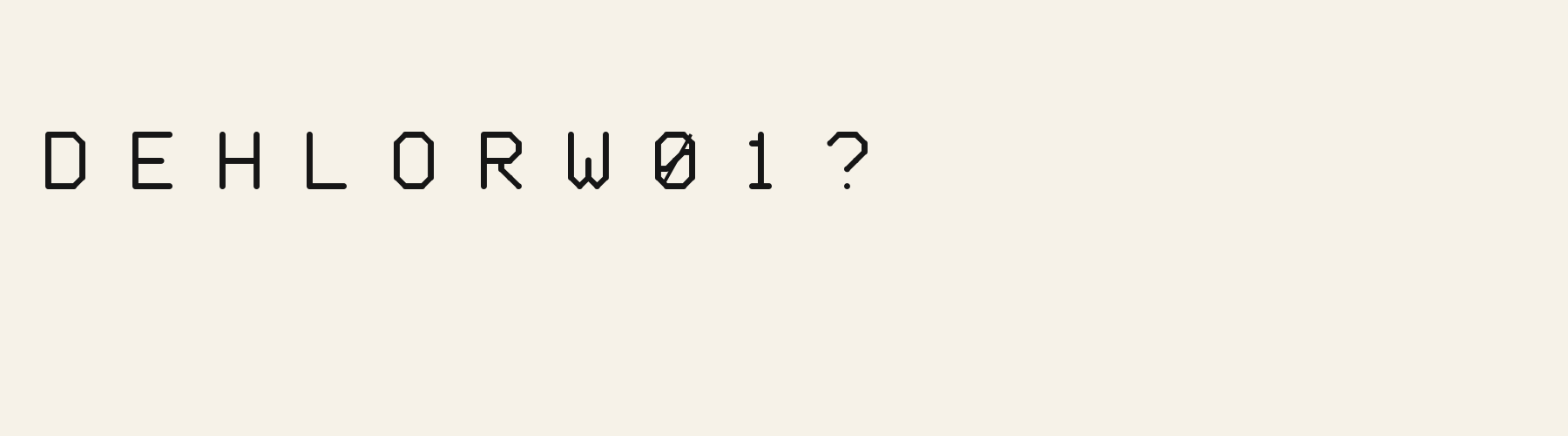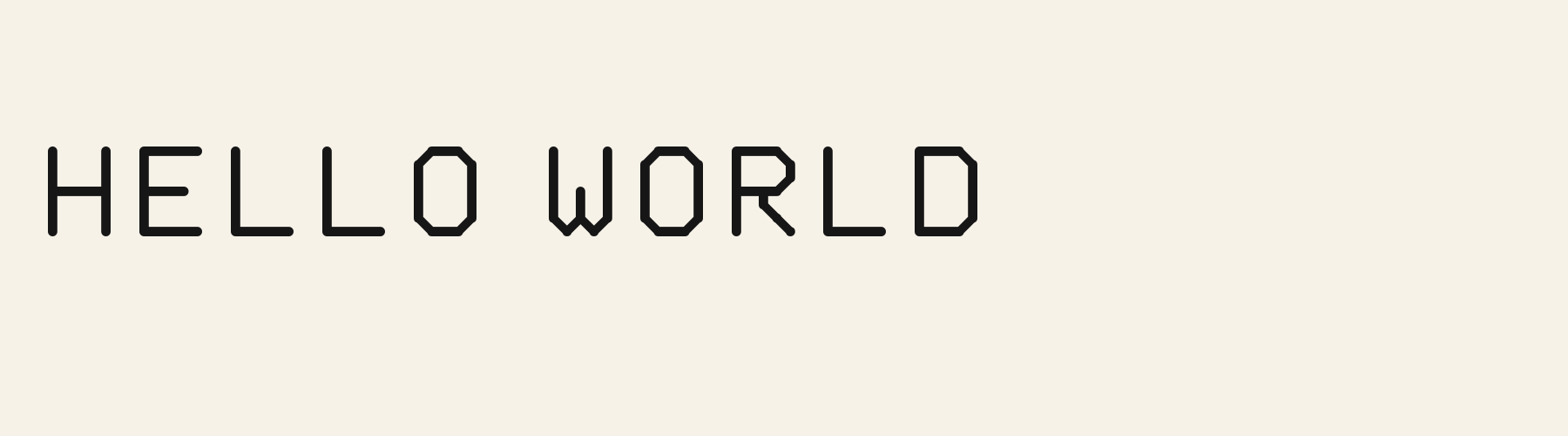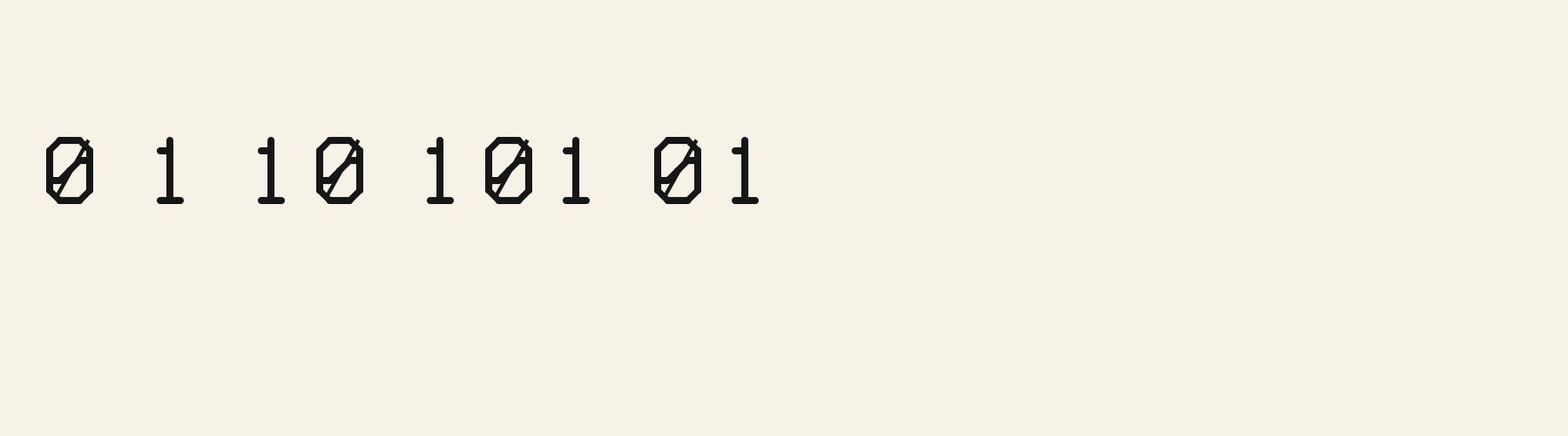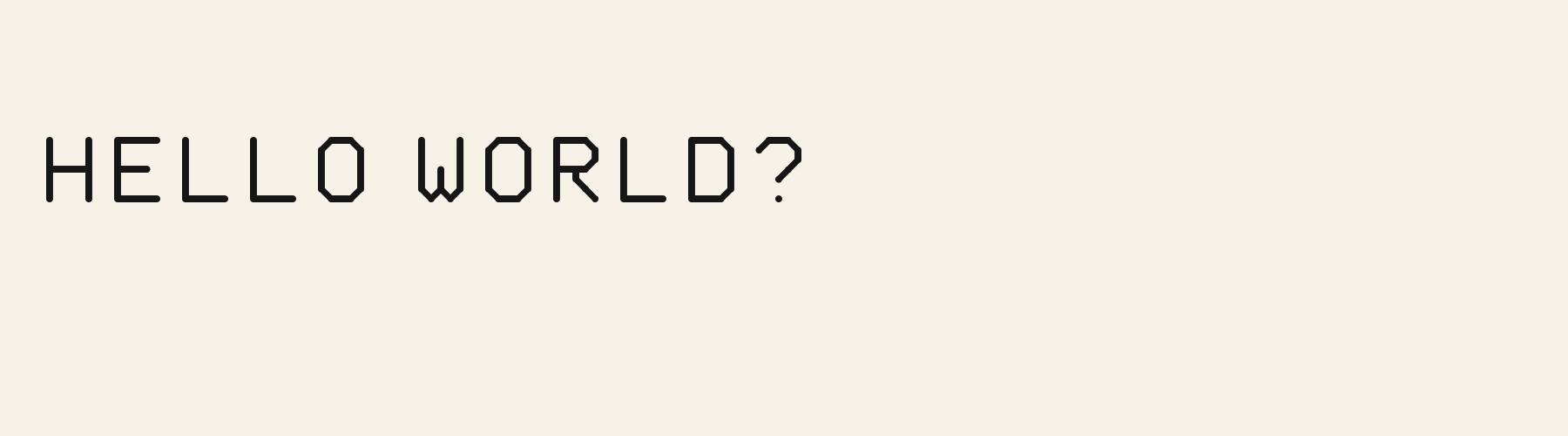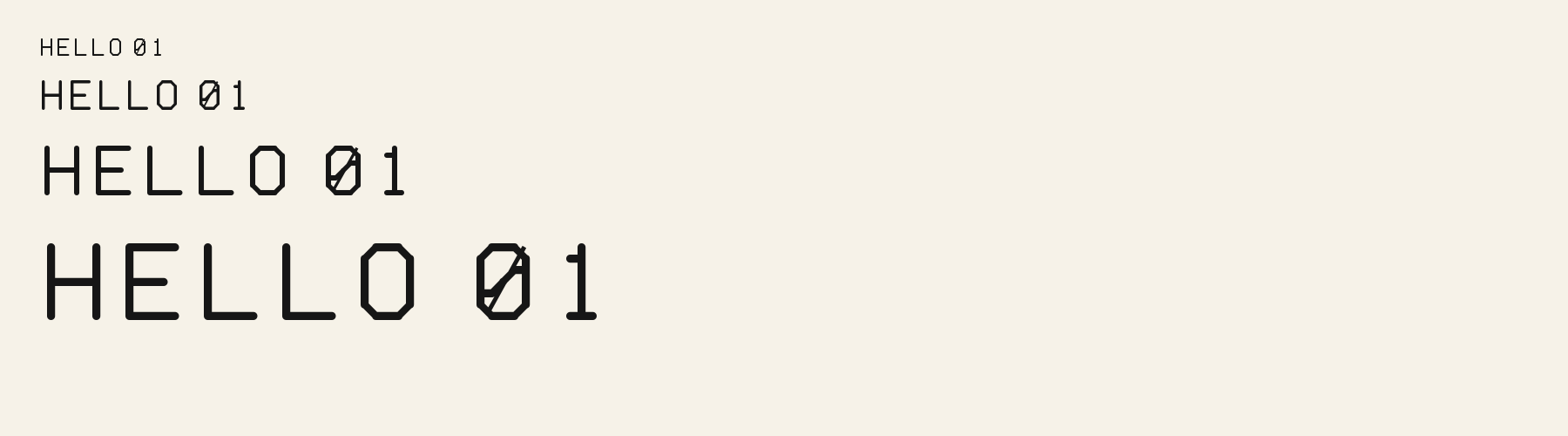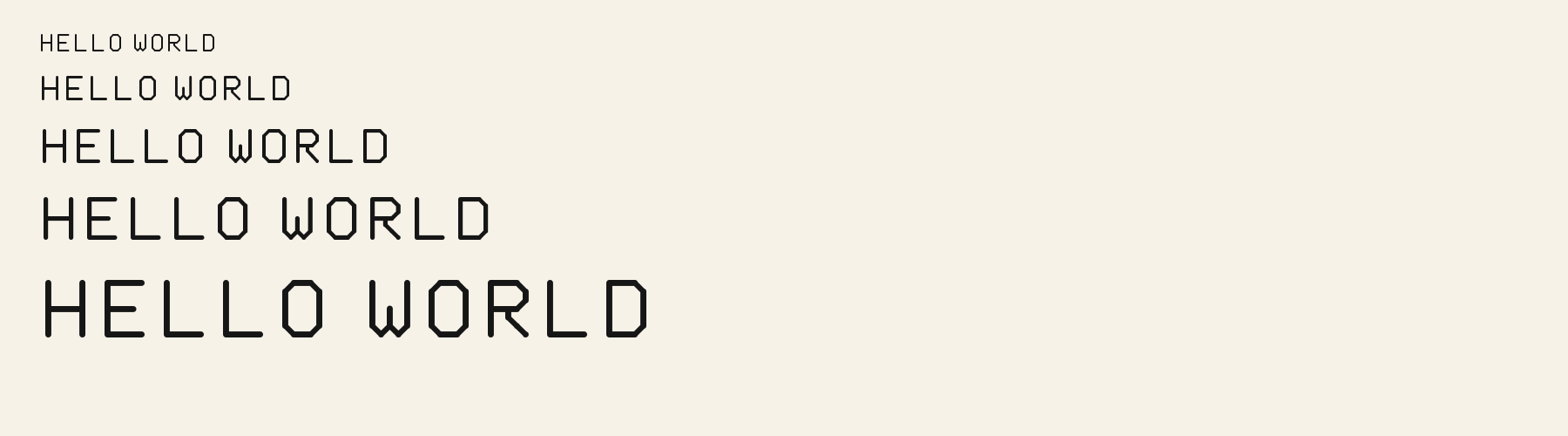
Mono Terminal Round Clipped Corner Coding Font
Mono Terminal Round combines angular outlines with softly rounded stroke ends.
Clipped Corner Coding Letterforms
Mono Terminal Round combines angular outlines with softly rounded stroke ends. The O has flat sides and clipped corners, creating an enclosed, octagonal counter rather than a smooth oval. The D keeps its left corners square while cutting across the right corners, and the W drops into pointed lower turns around a short central stem. Even strokes connect these shapes without a change in weight, while generous gaps keep the line feeling open. The result has the orderly mood of a console heading, softened by the blunt, rounded ends visible on letters such as E and L.
Check O against the slashed zero in actual Latin strings, then inspect the R leg and W junction at your intended size. Review punctuation spacing in technical labels. Hebrew needs a separate proof, since these specimens show Latin lettering rather than Hebrew forms.
Try it for short headings or status labels, with a proportional sans serif for supporting text. Its clipped bowls and broad, regular rhythm would contrast with narrower, more fluid paragraph lettering; proof the combination in your actual layout.
Mono Terminal Round: letterforms and layout
Compare smaller and larger previews to inspect the clipped corners of O and the central junction of W. The larger setting exposes the rounded stroke ends; check whether those details remain distinct in the smaller setting.
Mono Terminal Round uses a closed, angular O with flat horizontal sections and clipped corners. Its heavier strokes give the shared wording a firmer presence, with the geometric bowls carrying the coding mood.
Mono OCR Rounded Notch shows a narrow oval O with a visible break on its right side. Its finer strokes and curved bowls introduce a more delicate rhythm alongside the angular D and R.
Poster. Clipped bowls and forked W shapes give a coding event poster a clear geometric character with softened stroke ends. SENSOR READY
Product label. Even strokes and open interiors suit short equipment labels, giving technical wording a consistent, approachable appearance. HELLO WORLD
Website headline. The angular O and spacious rhythm make a short website heading feel deliberate, while rounded ends soften its mechanical structure.
The scenes are illustrations drawn on this page with Mono Terminal Round itself, not client work.
About Mono Terminal Round
Mono Terminal Round's lowercase x reaches 70.2% of the capital height, close to the 70.2% median for monospace fonts, taller than 11 of the 22 other monospace fonts. Ascenders on b, d, h, k and l line up with the capitals (100% of their height), and descenders on g, j, p, q and y drop 29.8% of the cap height below the baseline, shallower than 13 of the 22 other monospace fonts. Mono Terminal Round runs 19% wider than the median for monospace fonts: an average lowercase letter, spacing included, is 102.3% as wide as the capitals are tall (an average capital, 102.3%). The o is close to a circle, 1.00 times as wide as it is tall, and every capital has the same width. O stands exactly as tall as H and sits on the baseline, with no overshoot.
The letters stand upright, leaning less than 2.5° either way. Vertical stems measure 10.5% of the cap height, heavier than 13 of the 18 other monospace fonts. Ink covers 20.3% of each lowercase letter's box (its advance width by the cap height), lighter than 16 of the 22 other monospace fonts. Strokes keep one thickness in every direction: the sides of o and O measure the same as their tops and bottoms.
Its 186 characters include 116 Latin and 27 Hebrew letters, plus 43 figures, punctuation marks and symbols; 64 of the Latin letters are accented or special forms beyond A to Z. The word space measures 49.1% of the cap height, and the blank space either side of a lowercase letter takes up 35.4% of its width. The font carries no kerning, so spacing comes from each letter’s own side bearings. All ten figures share one width, so columns of numbers line up.
Measured from the version 0.3.2 font file. Comparisons are with the 376 published library fonts measured on November 8, 2026, 23 of them monospace fonts.
- Pinched Counter Grotesk (sans serif), Civic Sans (sans serif) and Quartz Nocturne (serif) are drawn on a different letter structure, so Mono Terminal Round can carry the headings while one of them sets the text. Each has its own page with a type tester for trying the pair.
- In the same monospace style: Heavy Slab Mono (heavier strokes, 16% narrower); Script Console (16% narrower, heavier strokes); Telex Mono (16% narrower, heavier strokes).